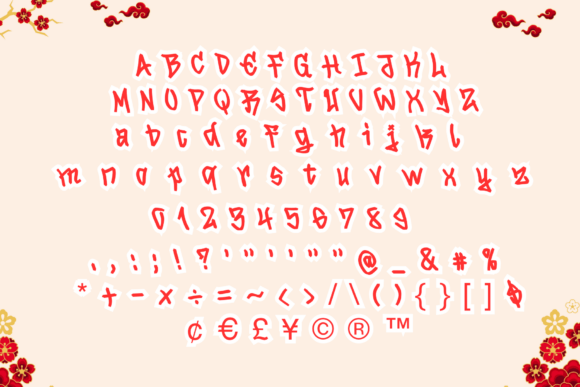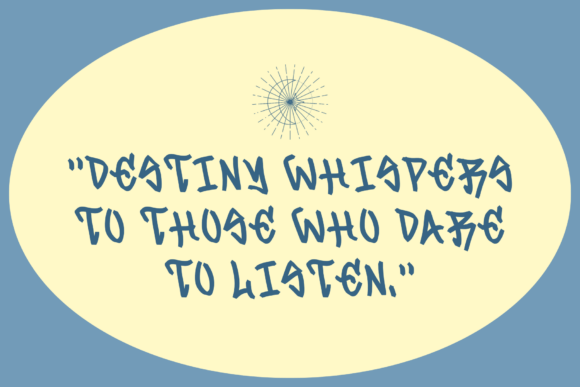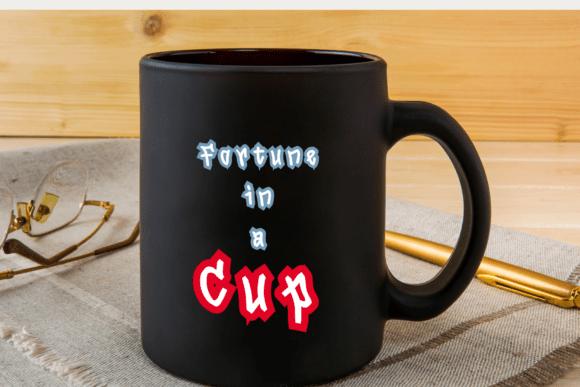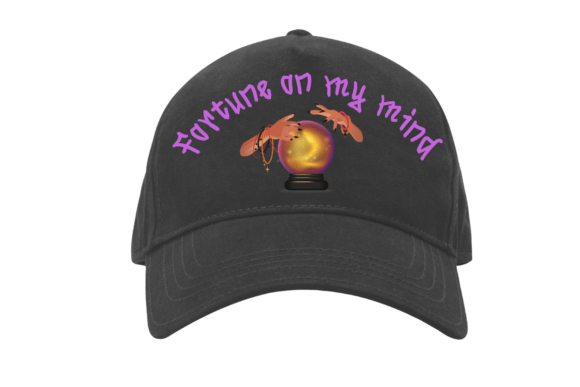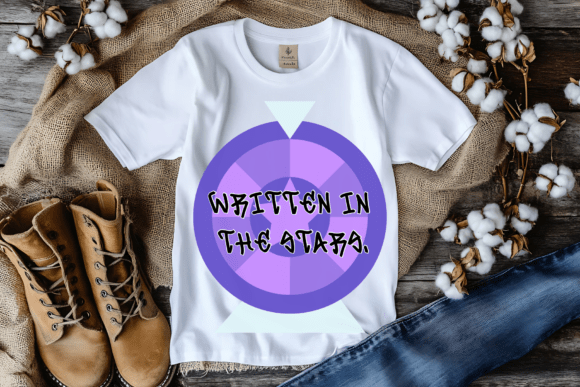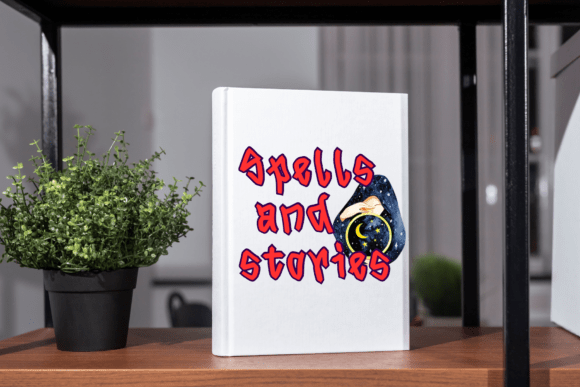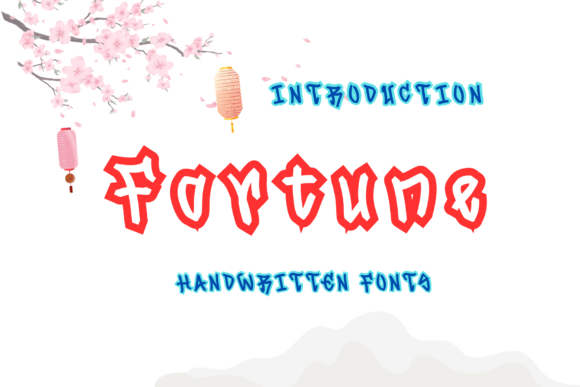
Introducing Fortune Font: A Whimsical Handwritten Style for Creative Expression
Are you on the hunt for a font that adds a personal touch to your creative projects? Look no further than Fortune Font, a beautiful handwritten font that’s perfect for a variety of applications. In this article, we’ll dive into the world of Fortune Font, exploring its features, uses, and benefits for designers, crafters, and writers alike.
What is Fortune Font?
Fortune Font is a stunning handwritten font that’s designed to bring a touch of personality to your written content. With its flowing curves and natural strokes, this font is reminiscent of handwritten notes and scribbled journal entries. Whether you’re taking notes, writing a diary, or creating greeting cards, Fortune Font is an excellent choice for adding a personal and intimate feel to your work.
Uses for Fortune Font
While Fortune Font is perfect for handwritten-style projects, its versatility extends far beyond traditional applications. Here are some creative ways to use Fortune Font:
• Note-taking and journaling: Add a personal touch to your notes and journal entries with Fortune Font’s whimsical style.
• Greeting cards and invitations: Create beautiful, one-of-a-kind greeting cards and invitations that stand out from the crowd.
• Banners and signs: Use Fortune Font to add a playful touch to banners, signs, and posters for events, promotions, or announcements.
• Social media posts: Add a personal touch to your social media posts, making them more engaging and relatable.
• Mugs, cards, and stationery: Create unique and thoughtful gifts, such as customized mugs, cards, and stationery.
• T-shirts and apparel: Design eye-catching t-shirts, hoodies, and other apparel with Fortune Font’s distinctive style.
Benefits of Using Fortune Font
So, why choose Fortune Font for your creative projects? Here are some benefits that make it an excellent choice:
• Unique and eye-catching: Fortune Font’s handwritten style sets it apart from more traditional fonts, making your projects stand out.
• Personal and relatable: The font’s natural, handwritten feel creates a sense of connection with your audience.
• Versatile: Use Fortune Font across a range of applications, from digital to print.
• Easy to read: Despite its handwritten style, Fortune Font remains clear and easy to read.
Tips for Using Fortune Font Effectively
To get the most out of Fortune Font, here are some tips for using it effectively:
• Pair with complementary fonts: Combine Fortune Font with other fonts to create visual interest and contrast.
• Experiment with colors: Try Fortune Font with different colors and textures to add depth and personality to your designs.
• Use it sparingly: Balance Fortune Font with more traditional fonts to avoid overwhelming your audience.
Font Name Fortune Font
Author Helio Bloom
Fortune Font is a beautiful, handwritten font that’s perfect for designers, crafters, and writers looking to add a personal touch to their creative projects. With its versatility, unique style, and ease of use, Fortune Font is an excellent choice for a wide range of applications. Whether you’re creating greeting cards, social media posts, or customized merchandise, Fortune Font is sure to bring a touch of personality and whimsy to your work.